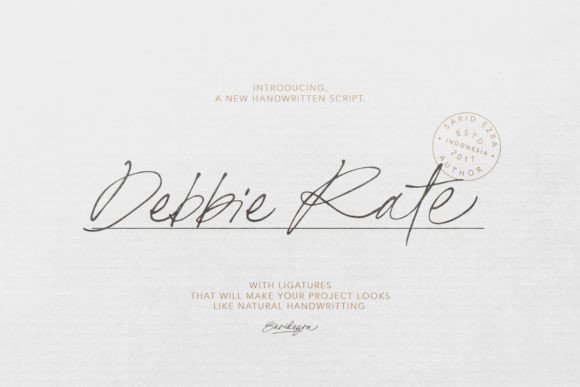
Introducing Debbie Rate Font: The Epitome of Elegance for Your Creative Endeavors
In a world saturated with digital noise, it's the subtle nuances that truly captivate and leave a lasting impression. Debbie Rate Font, a mesmerizing script creation by saridezra, embodies this philosophy with its enchanting curves and delicate flourishes.
With its graceful strokes and seamless ligatures, Debbie Rate Font exudes an air of sophistication and charm that will elevate your designs to new heights. Its handwritten style evokes a sense of intimacy and authenticity, making it the perfect choice for projects that demand a personal touch.
Whether you're crafting heartfelt quotes, designing elegant branding materials, or creating unforgettable wedding invitations, Debbie Rate Font will effortlessly elevate your vision. Its extensive ligature collection ensures a natural and distinctive appearance, while its PUA encoding grants effortless access to its full range of glyphs and ligatures.
Step into a world of creative possibilities with Debbie Rate Font. Let its enchanting charm work its magic, captivating your audience with every stroke. Experience the joy of seamless design and watch your creations come alive with a touch of timeless elegance.